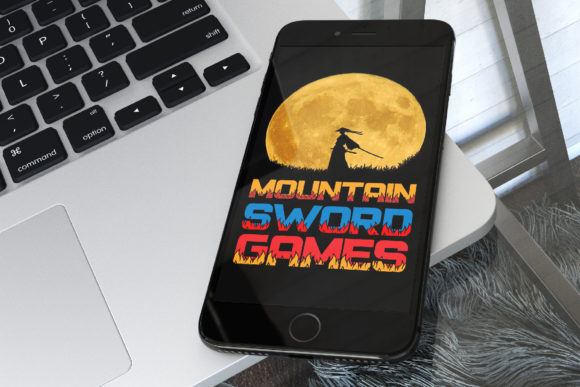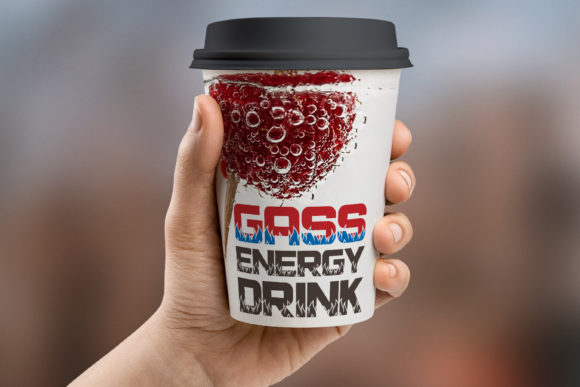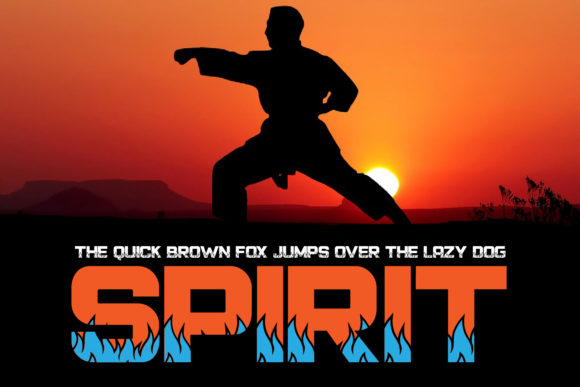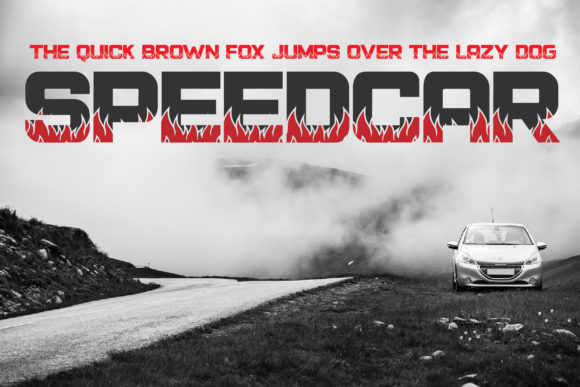
Ignite Your Designs with Fire Font: The Bold and Chunky Lettered Display Font
Are you tired of using the same old fonts in your designs? Do you want to add a spark to your creative projects and make them stand out from the crowd? Look no further than Fire Font, a bold and chunky lettered display font that’s sure to ignite your designs. In this article, we’ll take a closer look at Fire Font, its features, and how you can use it to take your designs to the next level.
What is Fire Font?
Fire Font is a bold and chunky lettered display font that’s perfect for designers and crafters who want to add a touch of excitement to their projects. Its unique and eye-catching design makes it ideal for use in a variety of creative projects, from posters and flyers to logos and branding materials. With its bold and chunky letters, Fire Font is sure to grab attention and make your designs stand out.
Key Features of Fire Font
So, what makes Fire Font so special? Here are some of its key features:
- Bold and Chunky Design: Fire Font features bold and chunky letters that are sure to grab attention.
- Unique and Eye-Catching: Its unique design makes it perfect for use in creative projects where you want to make a statement.
- High-Quality: Fire Font is a high-quality font that’s perfect for use in both digital and print projects.
- Easily Customizable: With Fire Font, you can easily customize the font to fit your design needs.
How to Use Fire Font in Your Designs
Now that we’ve covered the features of Fire Font, let’s take a look at how you can use it in your designs. Here are some ideas to get you started:
- Posters and Flyers: Use Fire Font to create eye-catching posters and flyers that grab attention.
- Logos and Branding Materials: Fire Font is perfect for use in logos and branding materials where you want to make a bold statement.
- Social Media Graphics: Use Fire Font to create social media graphics that stand out from the crowd.
- Signs and Banners: Fire Font is ideal for use in signs and banners where you want to grab attention.
Tips for Getting the Most Out of Fire Font
Here are some tips for getting the most out of Fire Font:
- Use it Sparingly: While Fire Font is bold and eye-catching, it can be overwhelming if used too much. Use it sparingly to make a bigger impact.
- Experiment with Colors: Fire Font looks great in a variety of colors. Experiment with different colors to find the one that works best for your design.
- Pair it with Other Fonts: Fire Font pairs well with other fonts. Experiment with pairing it with different fonts to create a unique look.
In conclusion, Fire Font is a bold and chunky lettered display font that’s perfect for designers and crafters who want to add a touch of excitement to their projects. With its unique and eye-catching design, Fire Font is sure to grab attention and make your designs stand out. Whether you’re creating posters, logos, social media graphics, or signs and banners, Fire Font is a great choice. So why not give it a try and see how it can ignite your designs?
So, add Fire Font to your most creative ideas and notice how it makes them stand out! With its bold and chunky letters, Fire Font is sure to take your designs to the next level.